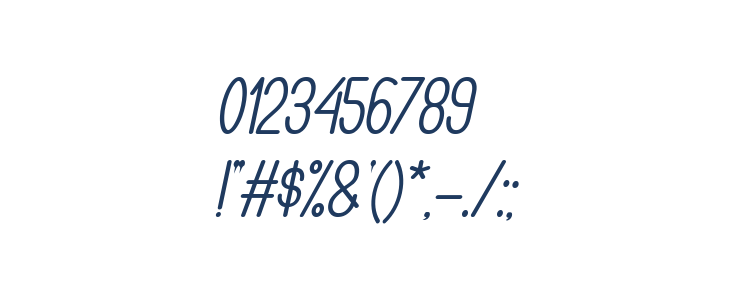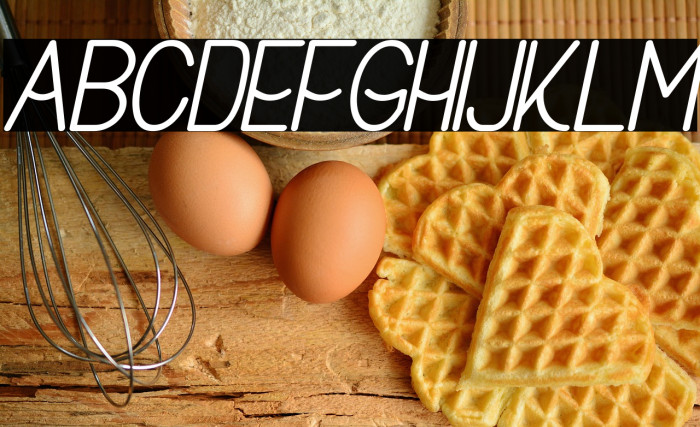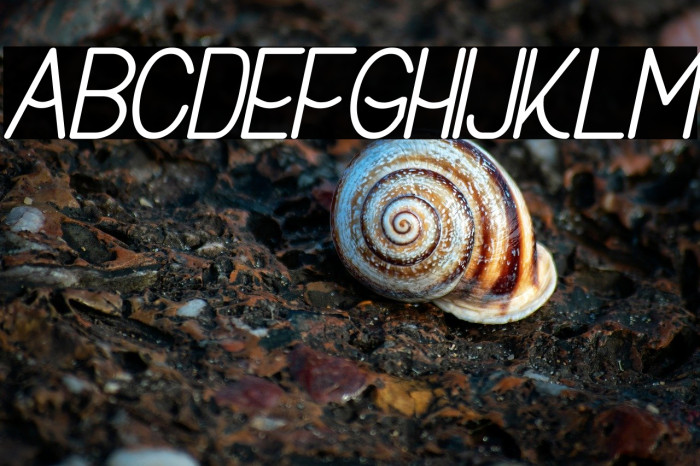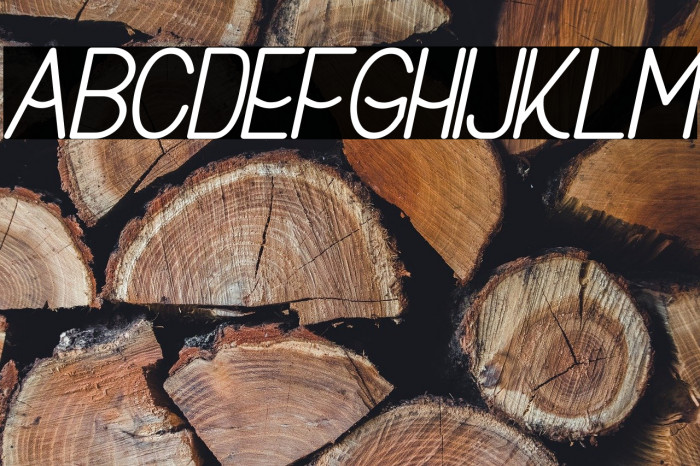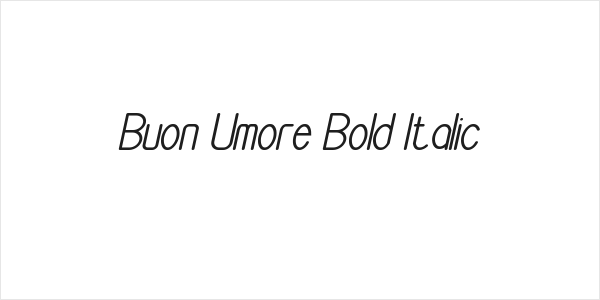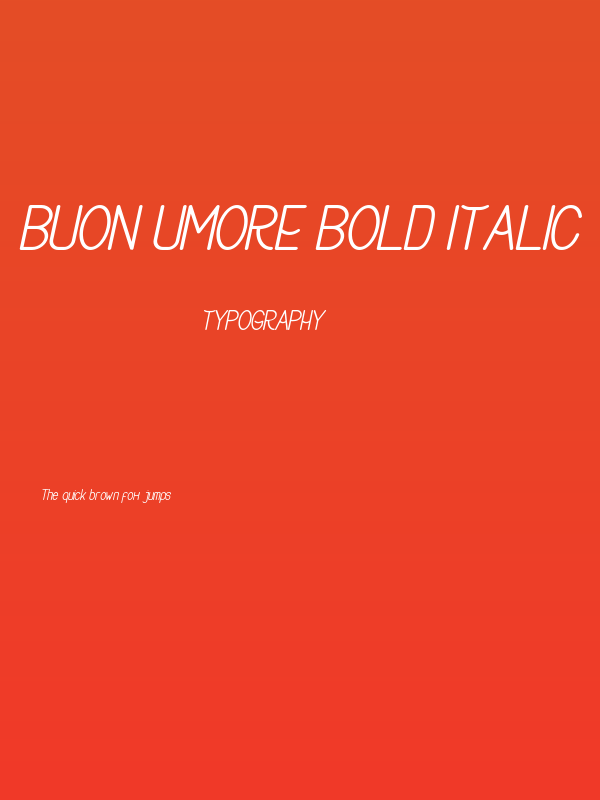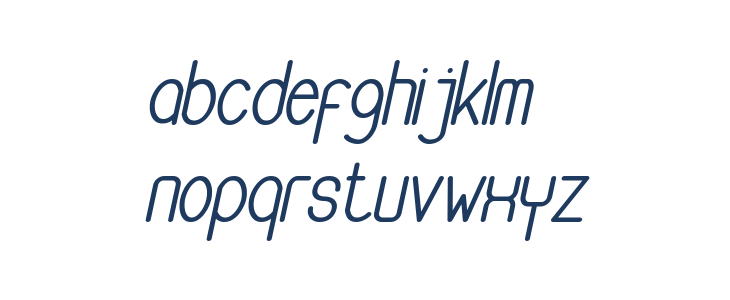
Buon Umore Bold Italic Font
Buon Umore Bold Italic Description
This font features a playful and dynamic style with a bold and italicized appearance. The characters are slightly elongated and have a smooth, flowing quality, giving them a sense of movement and energy. The strokes are consistent in thickness, providing a uniform look across all characters. The font maintains a modern aesthetic with a touch of whimsy, making it suitable for creative and informal applications. The spacing between characters is balanced, ensuring readability while maintaining its unique style.